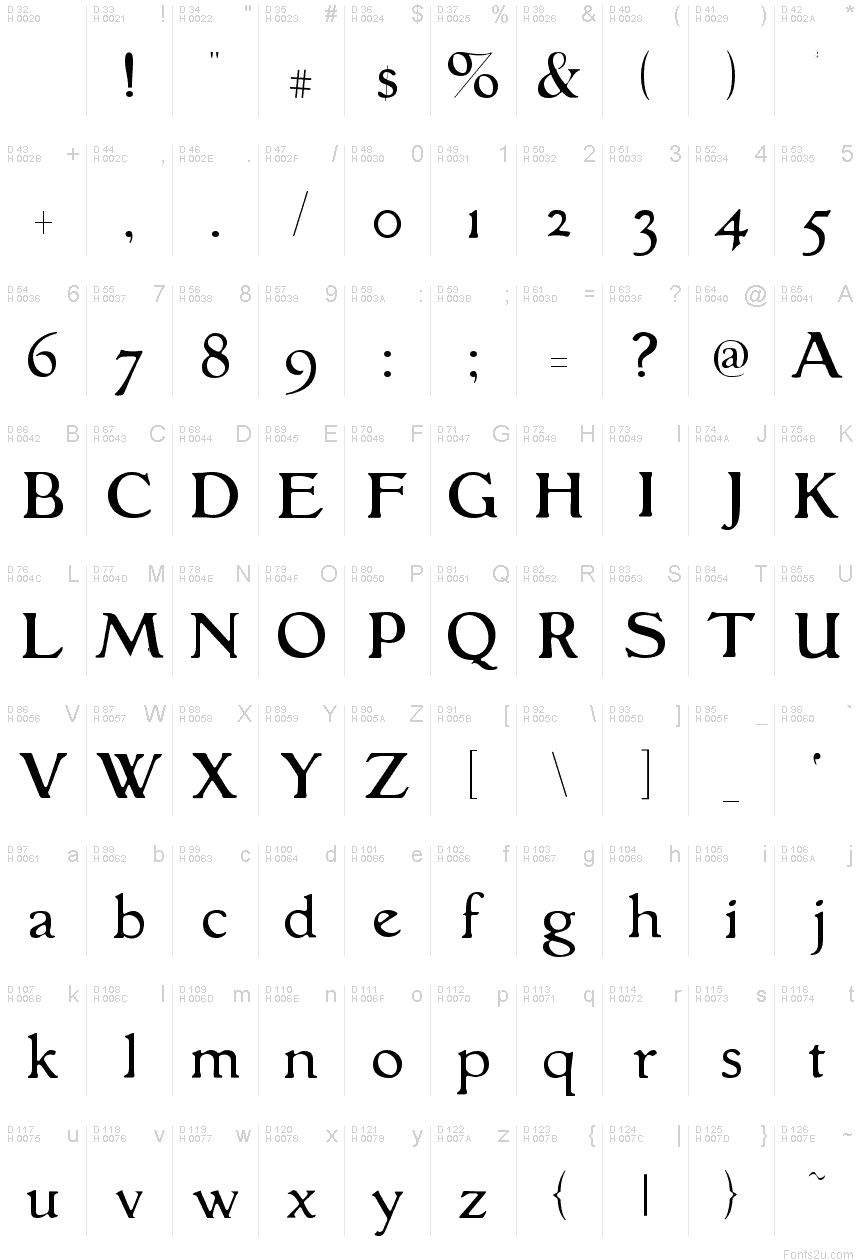
GranthamLight
Grantham Light font by PJL is a free retro serif typeface that feels like it’s been pulled from a worn hardcover and polished for modern screens. Its wide curves, chunky soft serifs, and slightly uneven rhythm give each word a gently inky, hand-set presence. There’s a literary warmth here-old-world, but not stuffy-that makes titles feel considered rather than loud.
Using Grantham Light, you get a serif that shines on book covers, vintage-inspired posters, boutique branding, coffee or craft packaging, event invitations, and characterful headlines. The spacing is generous enough to breathe at larger sizes, where its subtle quirks really show. For a simple pairing, set Grantham Light for headings and match it with a clean geometric sans for body copy to keep layouts readable but charming.